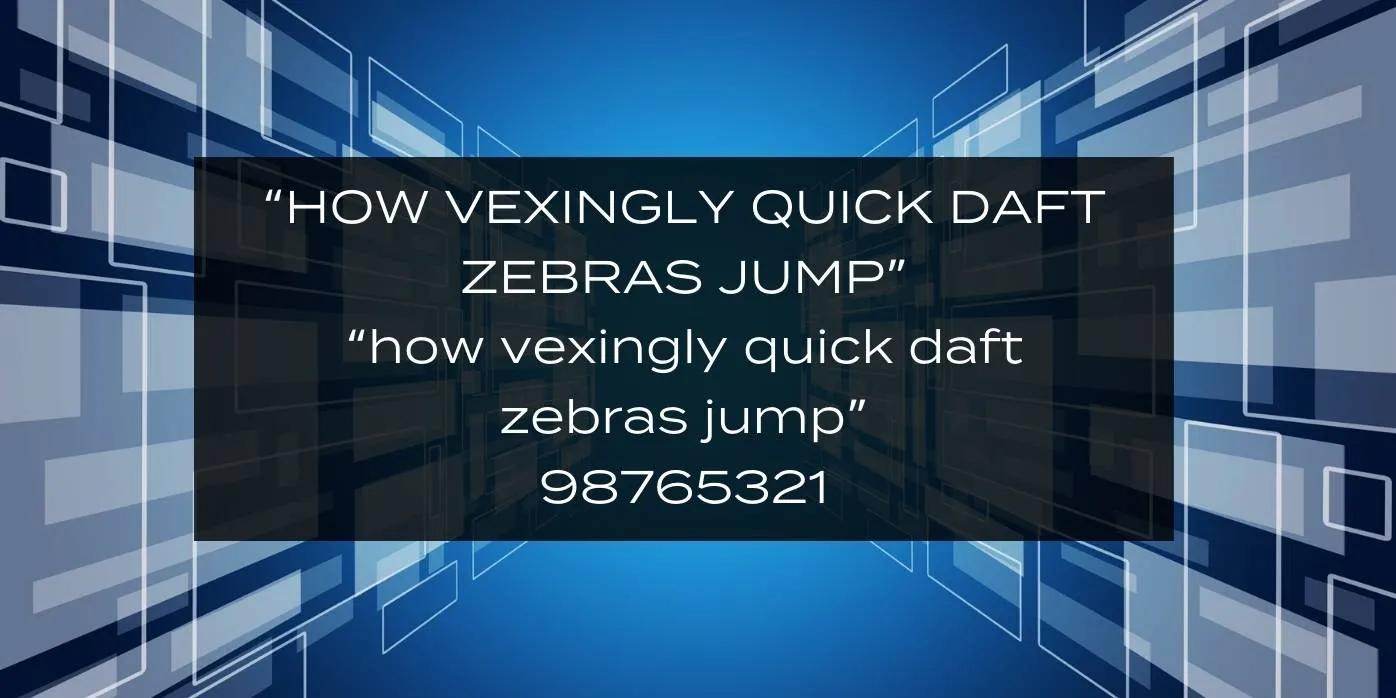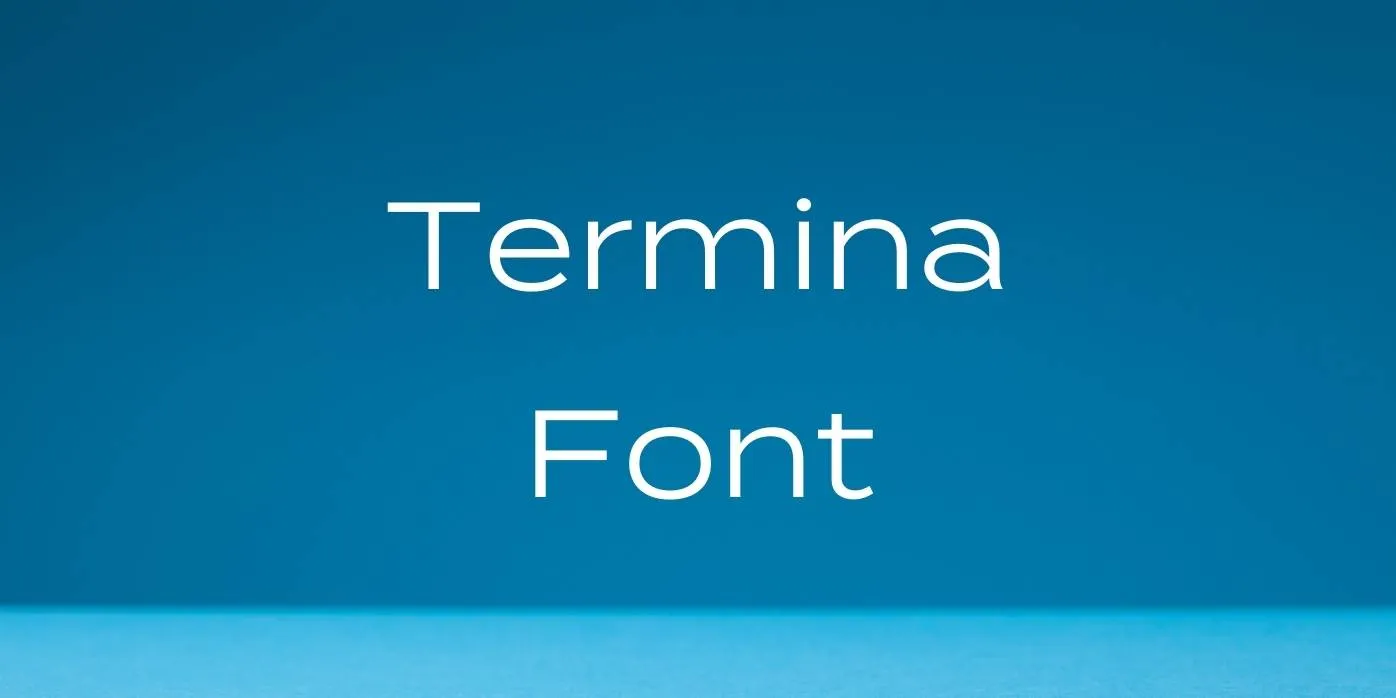
Termina Font
Here, we introduce a sans serif typeface known as Termina Font. Developed by Type Mattox Shuler, It is a great font for those seeking a modern and professional look. It features strong geometric shapes and is perfect for headlines, logos, and other display use. Let’s take a closer look at this stylish font.
As its name suggests, Termina Font was inspired by the terminals used in airports. The strong geometric shapes of the letters give it a modern and sleek appearance. The typeface is perfect for headlines, logos, and other display use. The family comes in 4 styles: light, regular, medium, and bold.
For more classic features, you will have to use its alternative new balance font which has the same features. While Termina Font is a sans serif typeface, it includes some special features that make it stand out from the rest. The lowercase letters are slightly narrower at the ends, giving them a more elegant look.